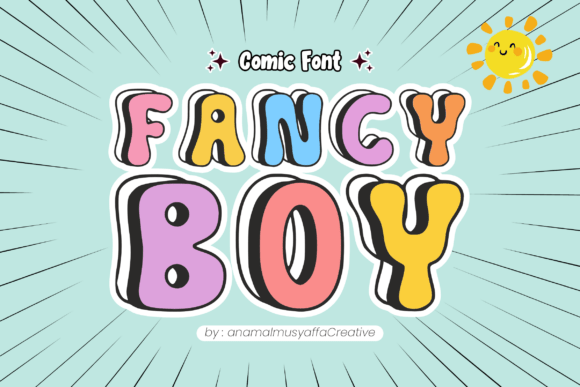
Fancyboy Regular Font: Where Creativity Meets Playfulness
Have you ever stumbled upon a font that instantly sparks a new idea for a project? That’s exactly what happened when I discovered the Fancyboy Regular Font. As a designer, I’ve often found myself searching for the perfect typeface to bring a touch of personality to my work. And let me tell you, Fancyboy Regular Font is more than just a pretty face – it’s a game-changer.
This contemporary comic typeface is designed to blend playful elegance with bold individuality, making it the perfect addition to any design project. Whether you’re creating sublimation designs, personalizing mugs, or animating comic titles, Fancyboy Regular Font is sure to bring character and creativity to your work. Its versatility and joyous spirit make it an invaluable tool for designers looking to push boundaries and have fun with their projects.
Fancyboy Regular Font Features
- Unique Characteristics: Fancyboy Regular features a unique blend of elegance and playfulness, with subtle rounded edges and a refined aesthetic that sets it apart from other sans-serif fonts.
Fancyboy Regular Font Review
Overall, I’m quite impressed with the Fancyboy Regular Font. It’s a great addition to any designer’s toolkit. ✨ Here are some of its strengths:
- Unique aesthetic: Fancyboy Regular Font has a distinct, vintage flair that can add a touch of sophistication to any project.
- High legibility: The font is highly readable, making it perfect for body text and longer passages.
- Excellent for creative projects: Fancyboy Regular Font is a great choice for projects that require a bit of whimsy and personality.
That being said, there are some limitations to consider: ⚠️
- Not ideal for technical documentation: Fancyboy Regular Font may not be the best choice for technical writing or documentation, as it can be a bit too ornate.
- May not be suitable for very small text sizes: The font’s unique aesthetic can become lost when scaled down to very small sizes.
Overall, I think Fancyboy Regular Font is a solid choice for designers looking to add some personality to their projects. While it may not be the best fit for every project, it’s definitely worth considering for creative and design-focused work.
Tips for Getting the Most Out of Fancyboy Regular Font
Use Fancyboy Regular Font for headings and titles to add a touch of elegance to your designs.
Pair Fancyboy Regular Font with other elegant fonts to create a sophisticated look.
Use Fancyboy Regular Font in combination with bold or italic text to add emphasis and visual interest.
Fancyboy Regular Font is perfect for:
Formal event designs
High-end branding and marketing materials
Alternatives to Fancyboy Regular Font
Open Sans is a clean and modern sans-serif font that is highly legible. It is suitable for body text, headings, and titles. Use Open Sans when you want a clean and neutral font that won’t distract from the content. Compared to Fancyboy Regular Font, Open Sans has a more geometric and modern feel, while Fancyboy has a more elegant and vintage feel.
Montserrat is a sans-serif font that is highly legible and suitable for body text, headings, and titles. It has a geometric feel and is often used in modern and minimalist designs. Use Montserrat when you want a font that is easy to read and has a strong, urban feel. Compared to Fancyboy Regular Font, Montserrat has a more geometric and modern feel, while Fancyboy has a more elegant and vintage feel.